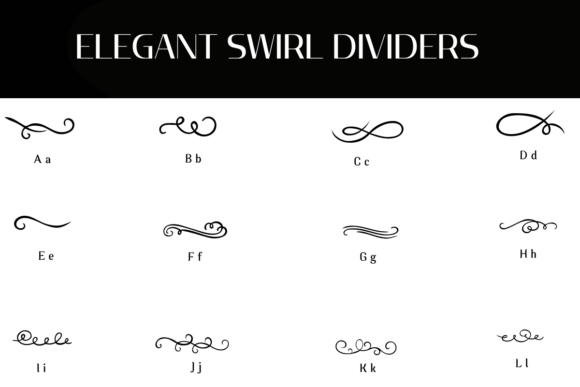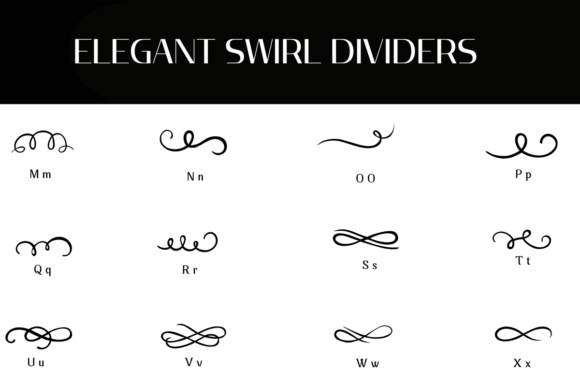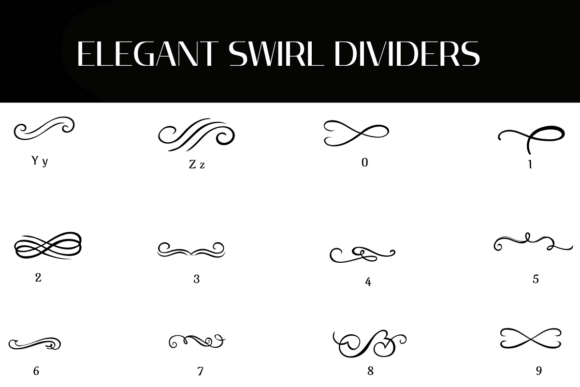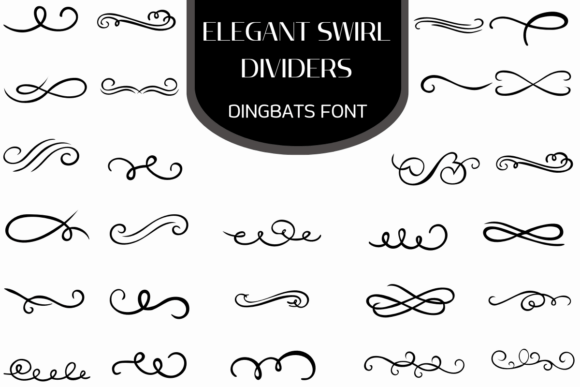
Elegant Swirl Dividers is a fun dingbats font.
Elegant Swirl Dividers Font offers exceptional quality and versatility, making it a valuable addition to your design toolkit. Whether you’re creating for personal projects or commercial use, Elegant Swirl Dividers Font delivers professional results.